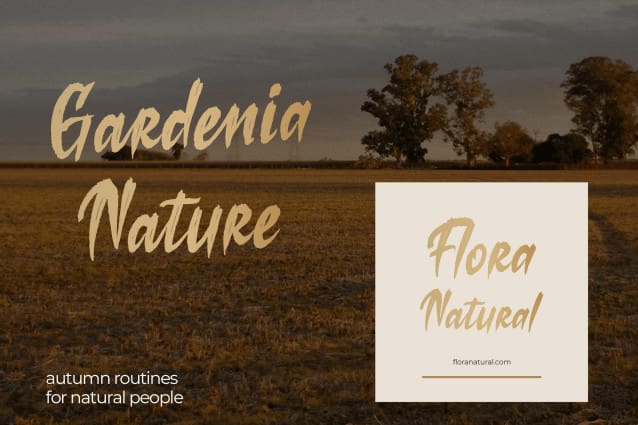
Losiento Brush Font
Losiento Brush Font | Brush Bold Quirky, from Denustudios, suitable for any projects such as: logos, branding projects, homeware designs, product packaging, mugs, quotes, posters, shopping bags, t-shirts, book covers, name card, invitation cards, greeting cards, label, photography, watermark, special events, and all your other lovely projects that need a Brush Bold Quirky taste.